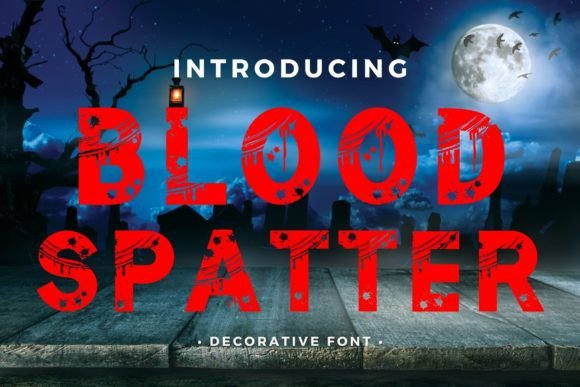
Embrace the Eerie Enchantment of Blood Spatter Font: Where Chills Meet Creativity
Delve into the realm of the extraordinary with Blood Spatter, a font that conjures both fear and delight. Its distinctive appearance embodies playfulness and authenticity, making it an ideal companion for your Halloween endeavors. Prepare to be mesmerized as this font transforms your projects into thrilling masterpieces.
Unleash the spine-tingling potential of Blood Spatter in creating haunting logos, branding that sends shivers down spines, and advertisements that captivate audiences. Craft chilling invitations and greeting cards that set the tone for unforgettable Halloween celebrations. Immortalize memories in photo albums adorned with the macabre allure of Blood Spatter, while planners and decorations take on a new dimension of eerie elegance.
The versatility of Blood Spatter knows no bounds, extending beyond Halloween's grasp. Experiment with it in blog posts, adding a touch of the unexpected to your writings. Designers, rejoice! Blood Spatter will add a unique flair to your designs, leaving a lasting impression on your clientele. Embrace the boundless opportunities it presents and witness the transformation of your creative visions.
Transport yourself to a realm where imagination and horror collide. Immerse yourself in Blood Spatter's captivating essence and watch as your projects take on a life of their own. Its every stroke drips with personality, promising to ignite your creativity and unleash a torrent of spine-chilling designs.
Seize this opportunity to enhance your design arsenal with Blood Spatter, a font that promises to cast a spellbinding aura over your creations. Dare to venture into the realm of the extraordinary, where your projects will take on a life of their own, leaving a trail of captivated hearts in their wake.